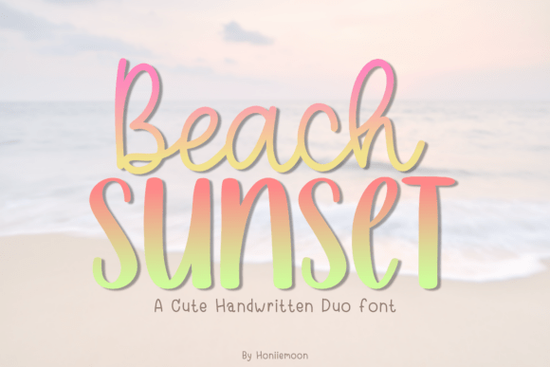
If you're working on summer-themed designs think beach weddings, vacation postcards, tropical apparel, or even kids' party invites you’ll want a font that feels light, cheerful, and personal. That’s where Beach Summer Font comes in. It’s a friendly duo font that pairs a natural handwritten style with a flowing script, giving your projects a relaxed yet intentional look.
Unlike rigid, overly polished typefaces, Beach Summer captures the warmth of a note scribbled on a sun-bleached napkin or a message tucked into a seashell. It’s especially useful for designers and small business owners who want their branding to feel approachable not corporate.
Why choose a duo font like Beach Summer?
Duo fonts give you two complementary styles in one package. With Beach Summer, you get:
- A casual handwritten version for headlines, labels, or short phrases
- A connected script for elegant accents, signatures, or decorative text
This flexibility means you can create visual hierarchy without switching between unrelated fonts. For example, use the handwritten style for “Beach Party!” and the script for “Saturday at Sunset Cove” all while keeping a cohesive aesthetic.
If you enjoy fonts with personality but still need legibility, Beach Summer strikes that balance. It’s playful without being chaotic, and its letterforms retain enough structure to remain readable even at smaller sizes.
Who is this font best for?
Beach Summer works well across several creative niches:
- Print-on-demand sellers creating summer T-shirts, mugs, or tote bags
- Event planners designing invitations for coastal weddings or pool parties
- Crafters making vinyl decals, greeting cards, or scrapbook elements
- Small businesses building seasonal menus, signage, or social media graphics
Because it mimics real handwriting, it adds authenticity something customers increasingly respond to. A coffee shop promoting “Sunrise Smoothies” in Beach Summer feels more human than one using a standard sans-serif.
How does it compare to other script fonts?
Not all script fonts are created equal. Some lean too formal (Honeymoon Font is great for romance but less suited for beachy vibes), while others feel stiff or generic. Beach Summer sits comfortably in the middle: expressive but not fussy.
If you’ve used Alphabet Handwriting, you’ll appreciate how Beach Summer offers more fluid connections and bounce. And unlike Monday Font, which has a modern minimalist edge, Beach Summer leans into warmth and nostalgia.
For those who love sister-style pairings (like Sister Font) or elemental brushwork (as seen in Elemental Calligraphy), Beach Summer provides a more relaxed, sun-drenched alternative ideal when your theme involves sand, surf, or sunshine.
Tips for using Beach Summer effectively
To get the most out of this font, keep these practical suggestions in mind:
- Avoid overuse. Because it’s decorative, stick to headlines, logos, or short quotes. Body text should use a clean, neutral font.
- Pair with simple sans-serifs. Try combining it with fonts like Montserrat or Lato for contrast and clarity.
- Adjust letter spacing slightly if letters feel too tight especially in the script version.
- Use color thoughtfully. Soft blues, sandy beiges, coral pinks, and seafoam greens enhance its summer mood.
Also, remember that handwritten-style fonts like Beach Summer often include alternate characters or ligatures. Check your design software’s OpenType features to access swashes or stylistic sets that add extra charm.
Whether you’re designing a beach wedding invitation suite or a “Vacation Mode: ON” t-shirt, this font helps convey joy without shouting. It’s not trying to be trendy it’s aiming for timeless summer ease.